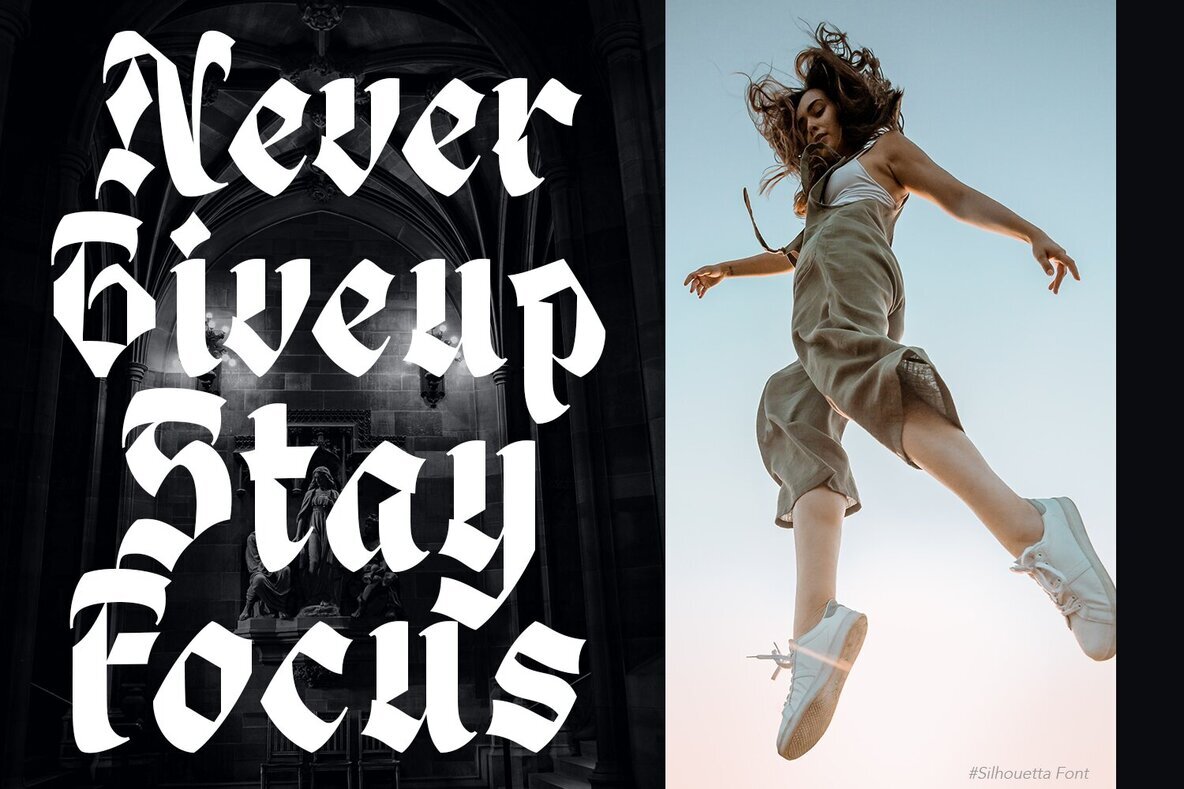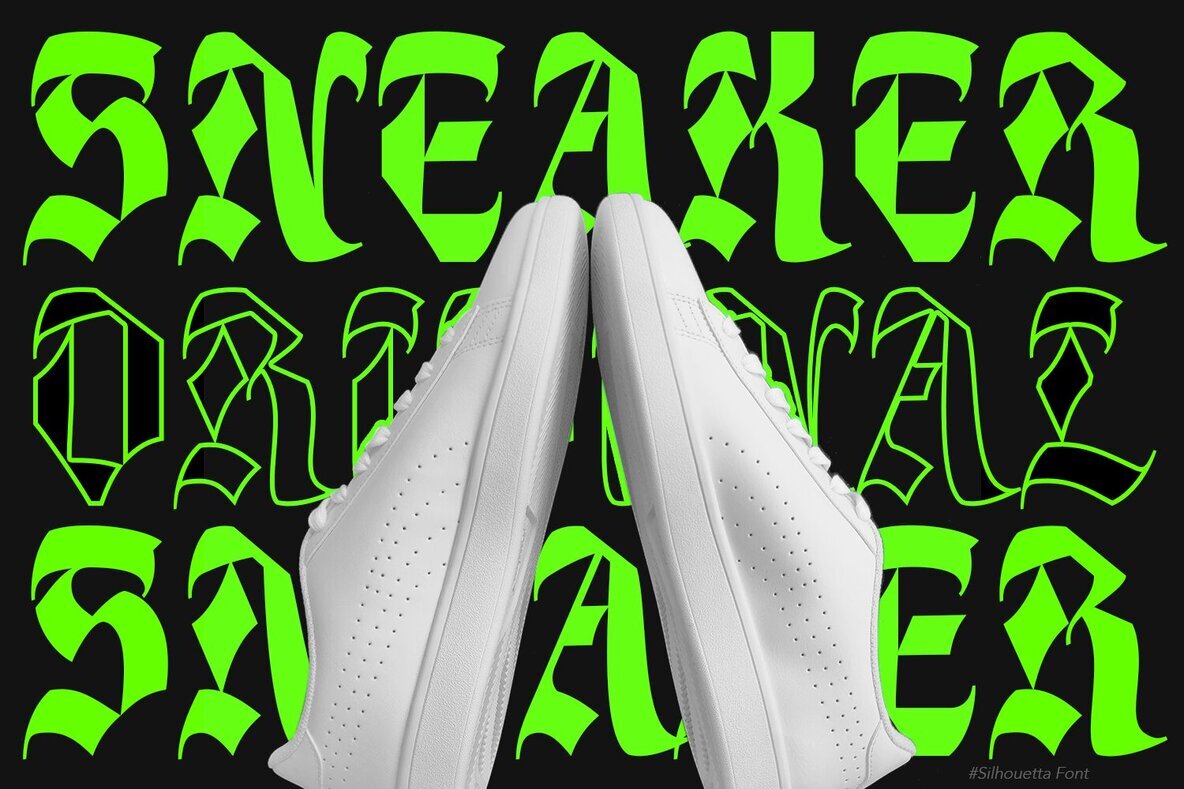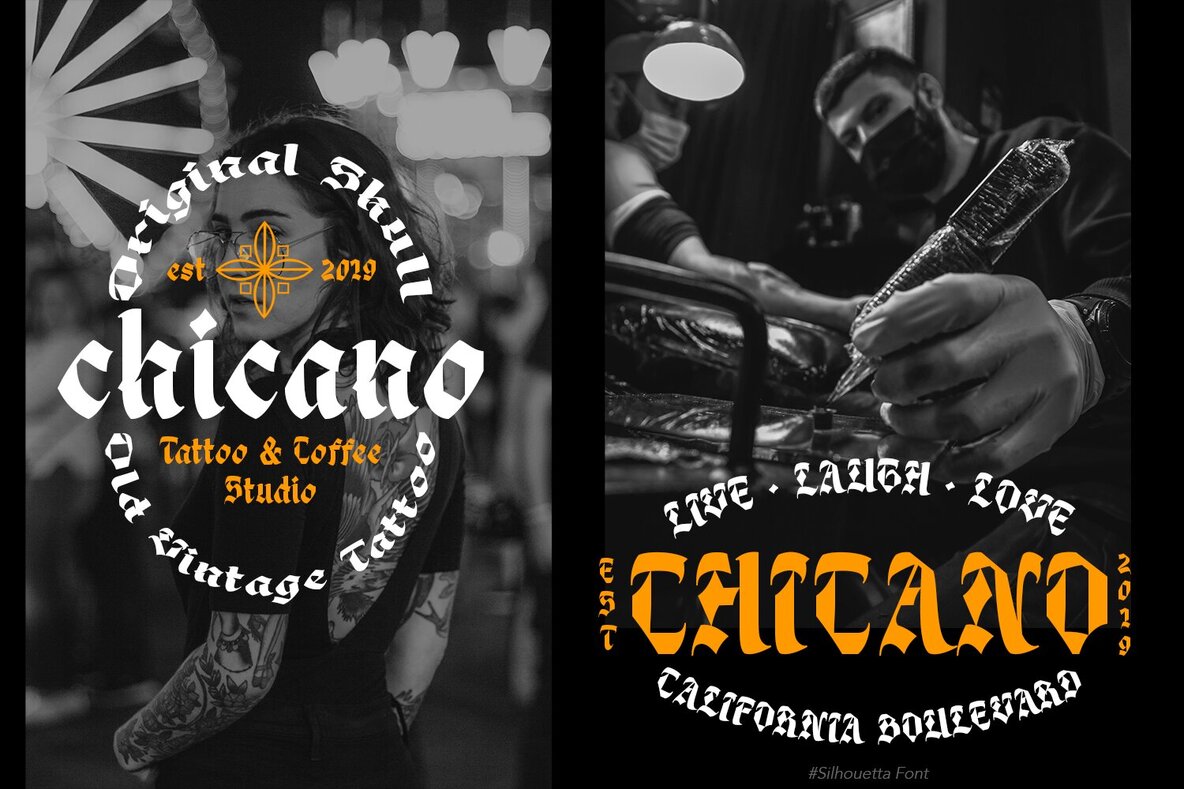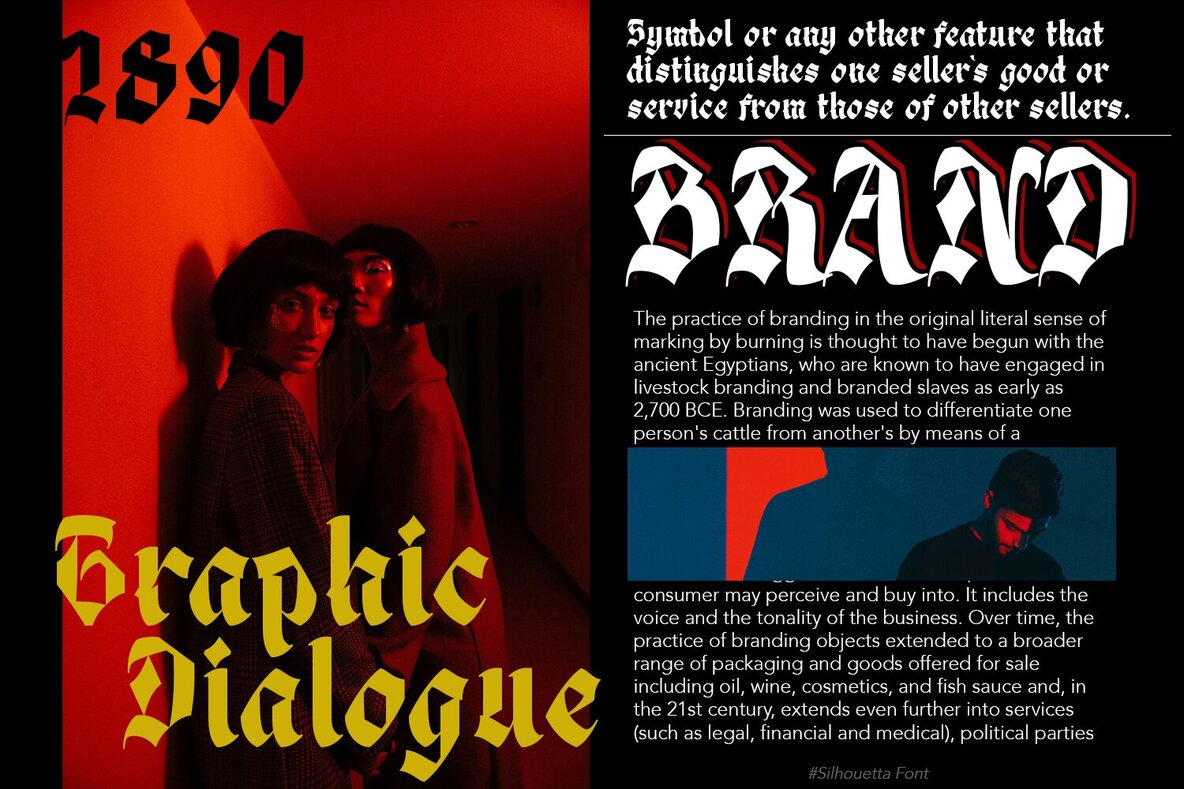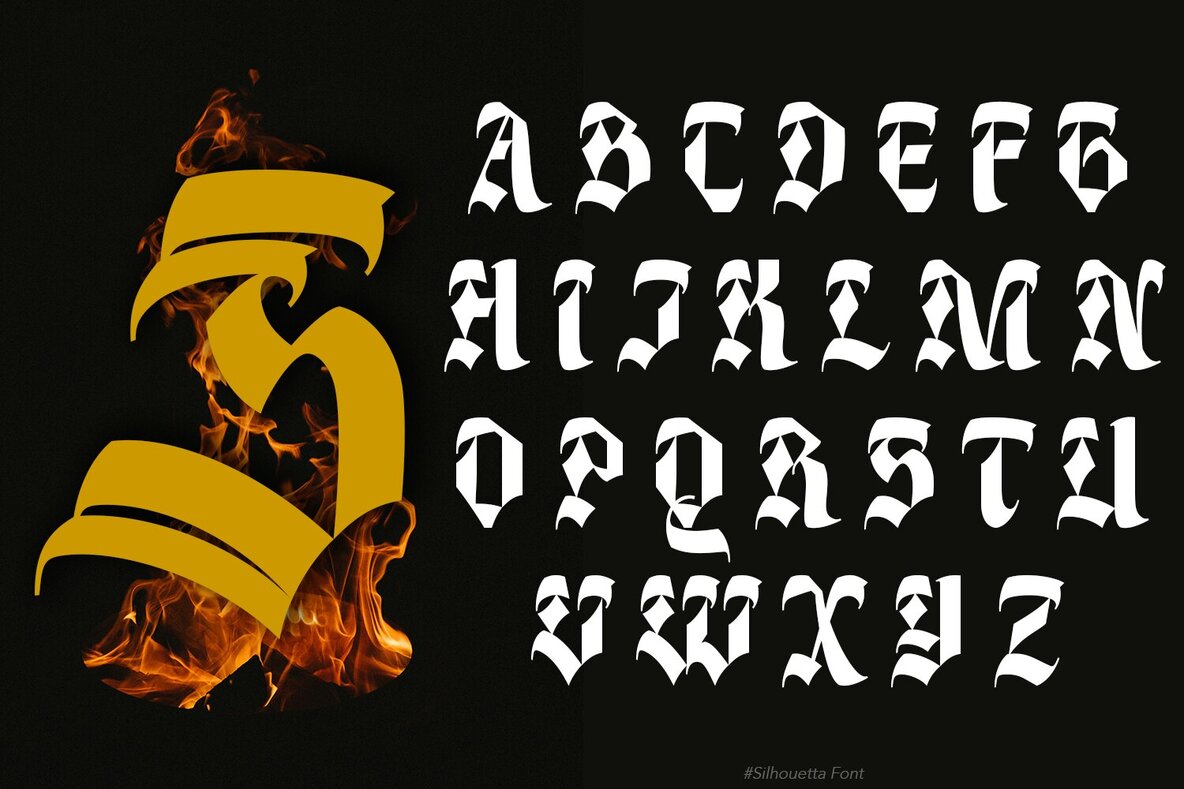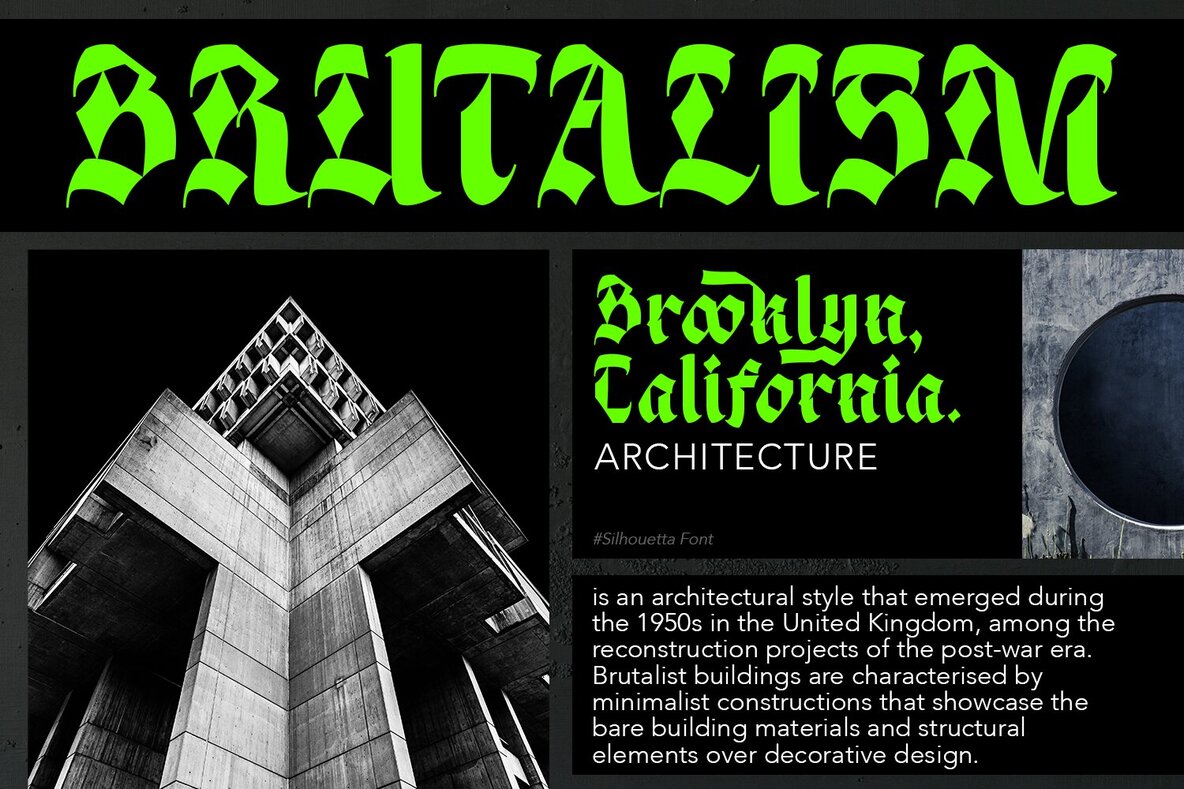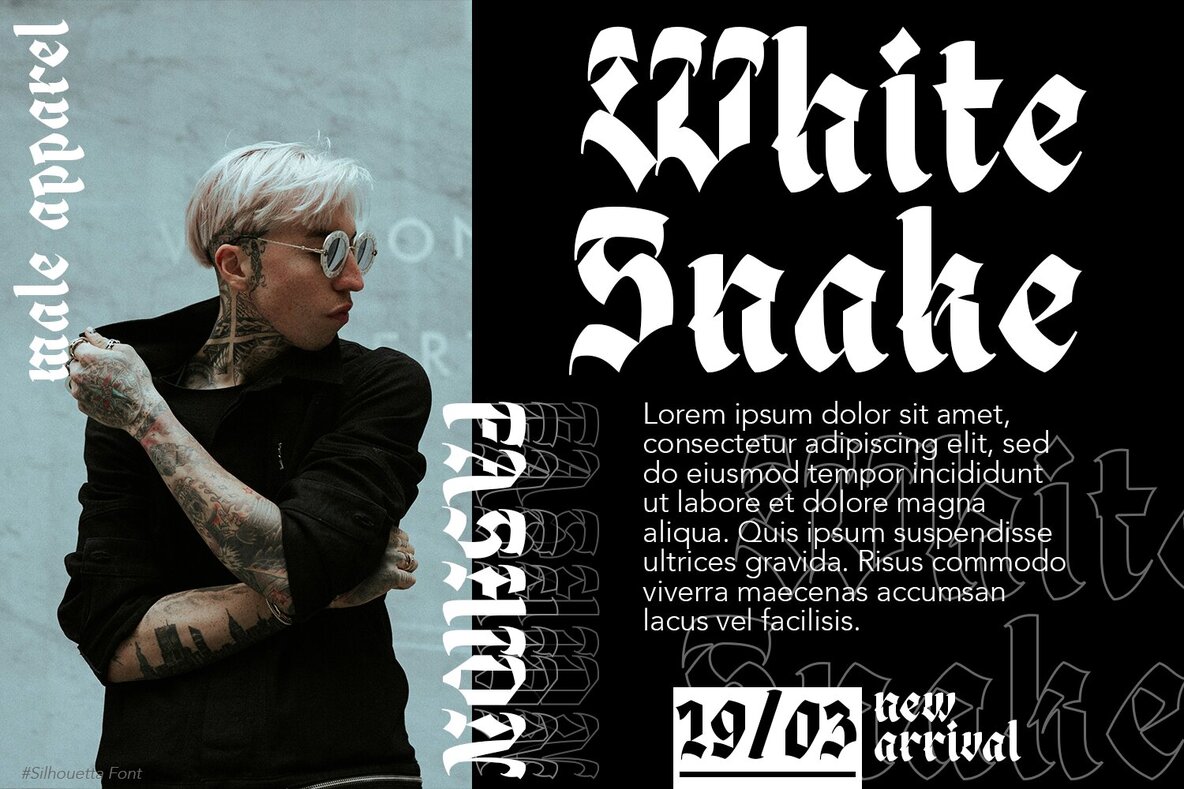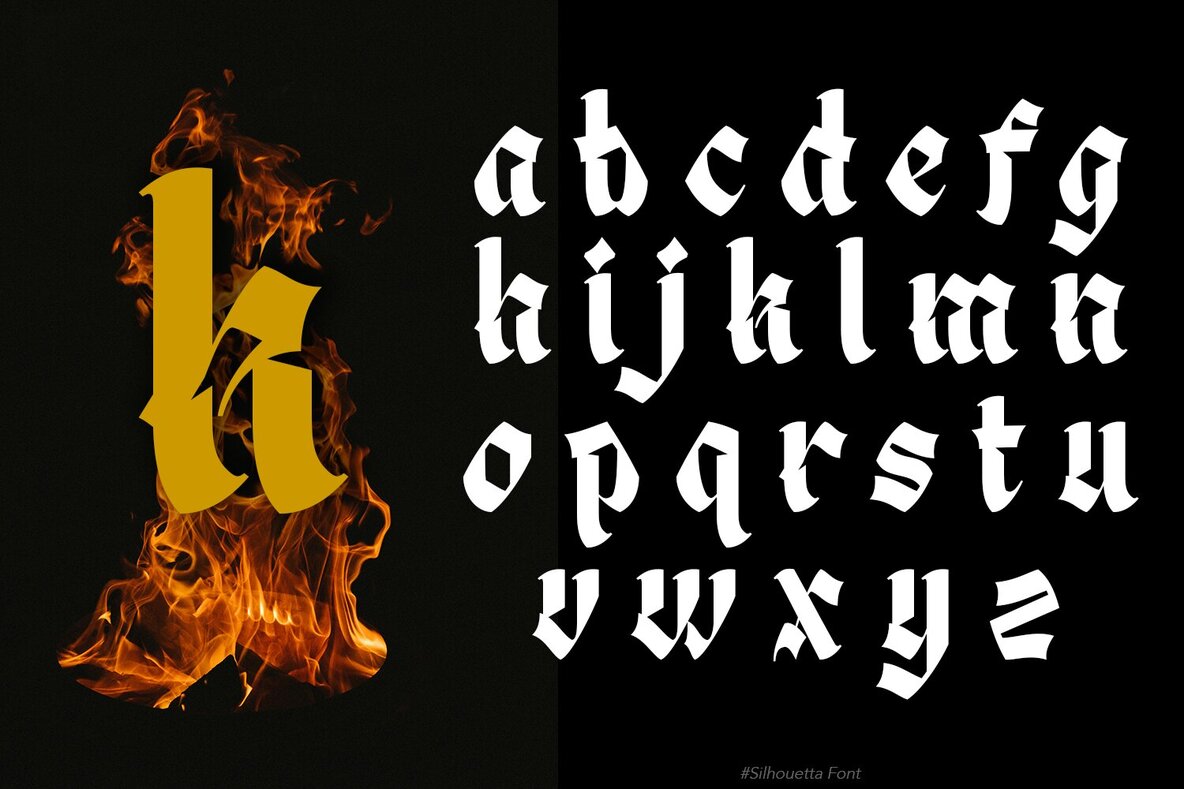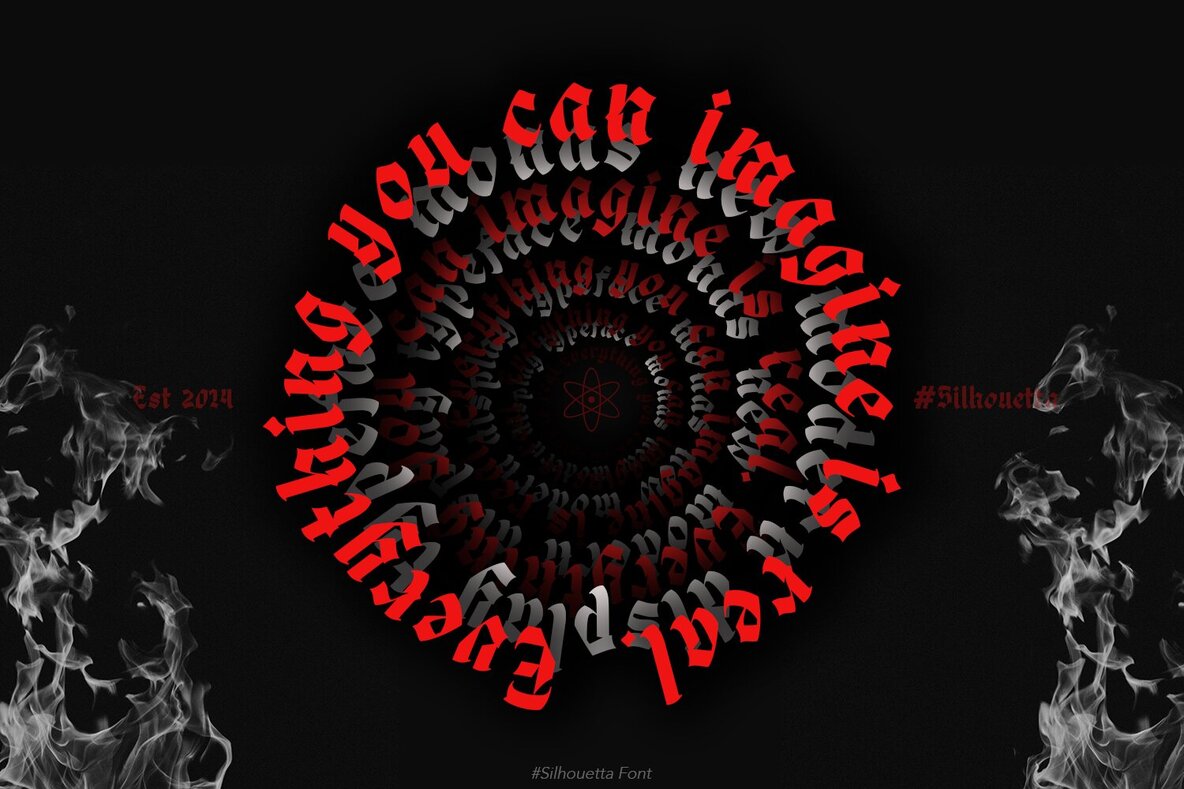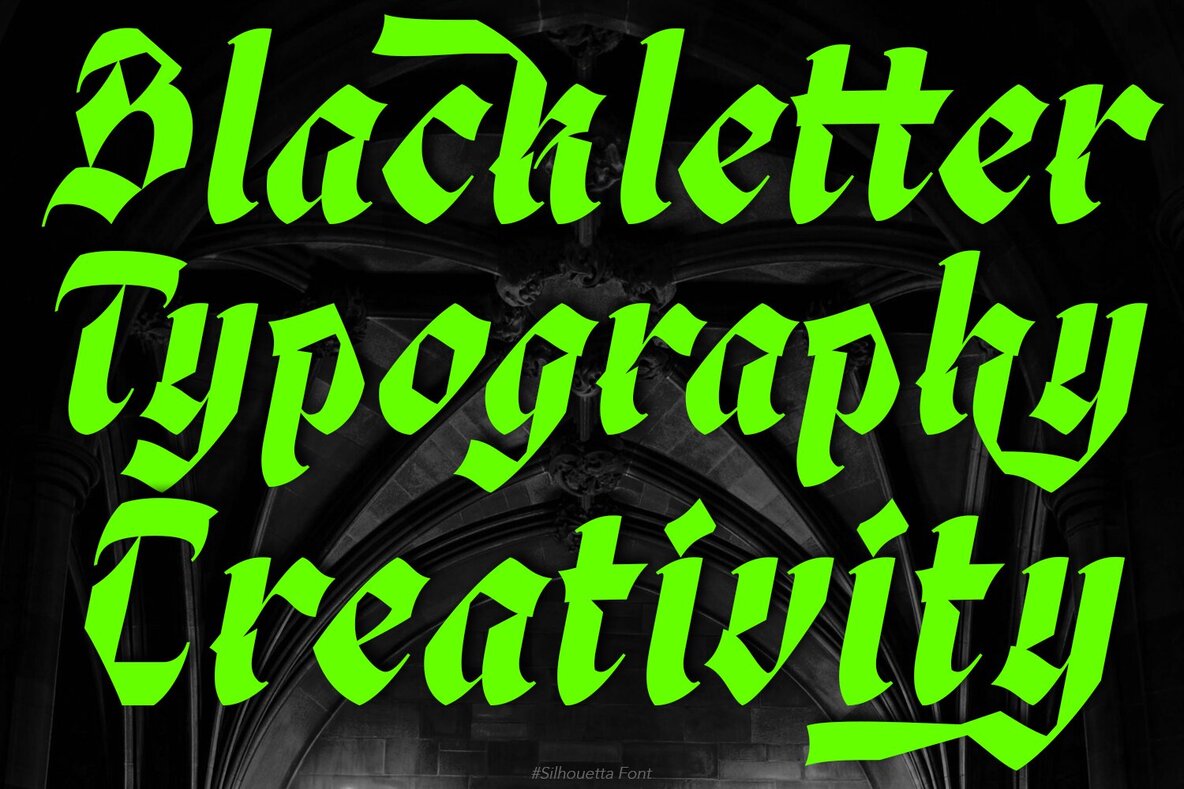
Silhouetta Font
Silhouetta Regular
This typeface is a bold, gothic serif font with ornate victorian influences. Its decorative elements and elaborate serifs give it a dramatic and antique appearance, making it well-suited for projects that require a nostalgic or historic vibe. The font's expressive character shapes and high contrast between thick and thin strokes offer both elegance and a strong visual impact, ideal for attention-grabbing headlines or typographic decorations.